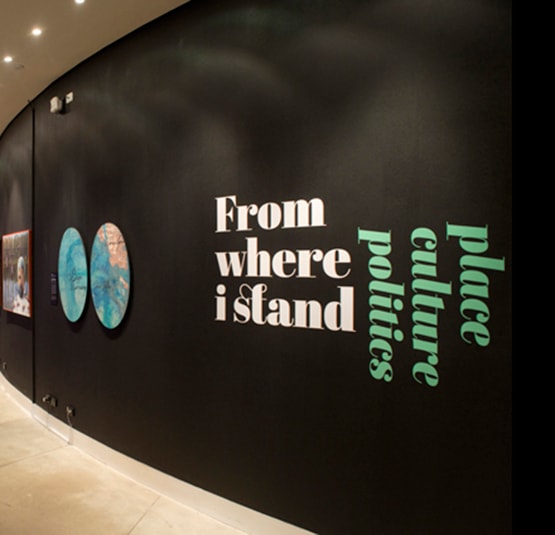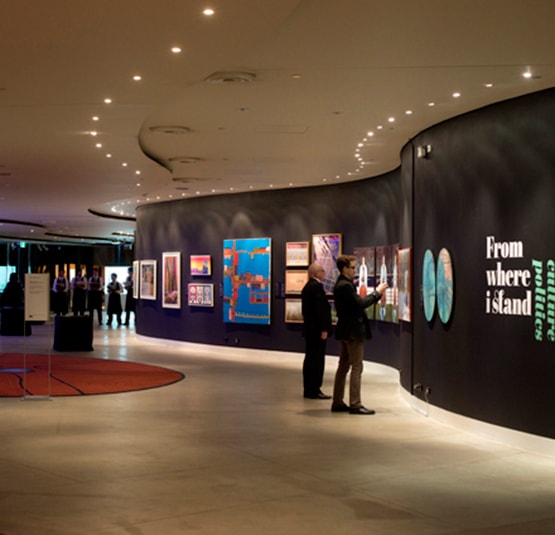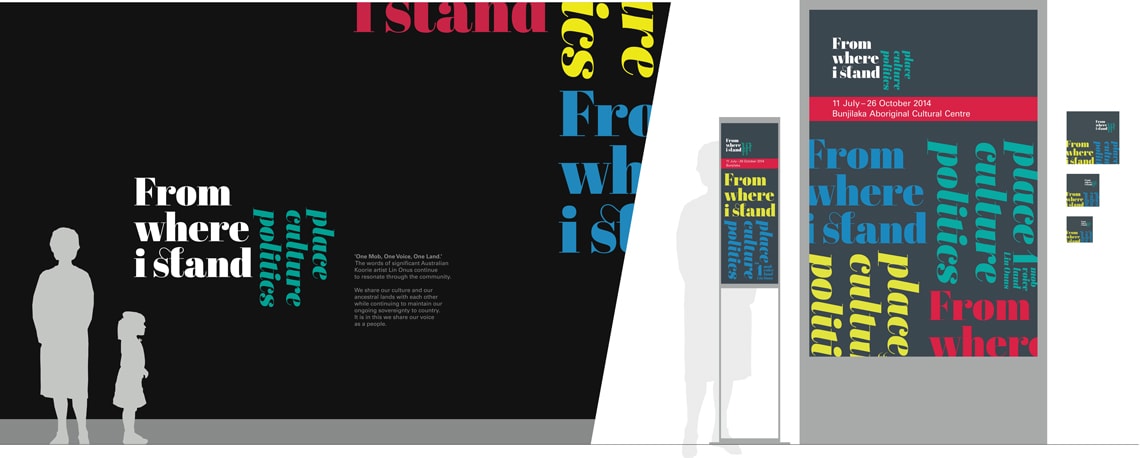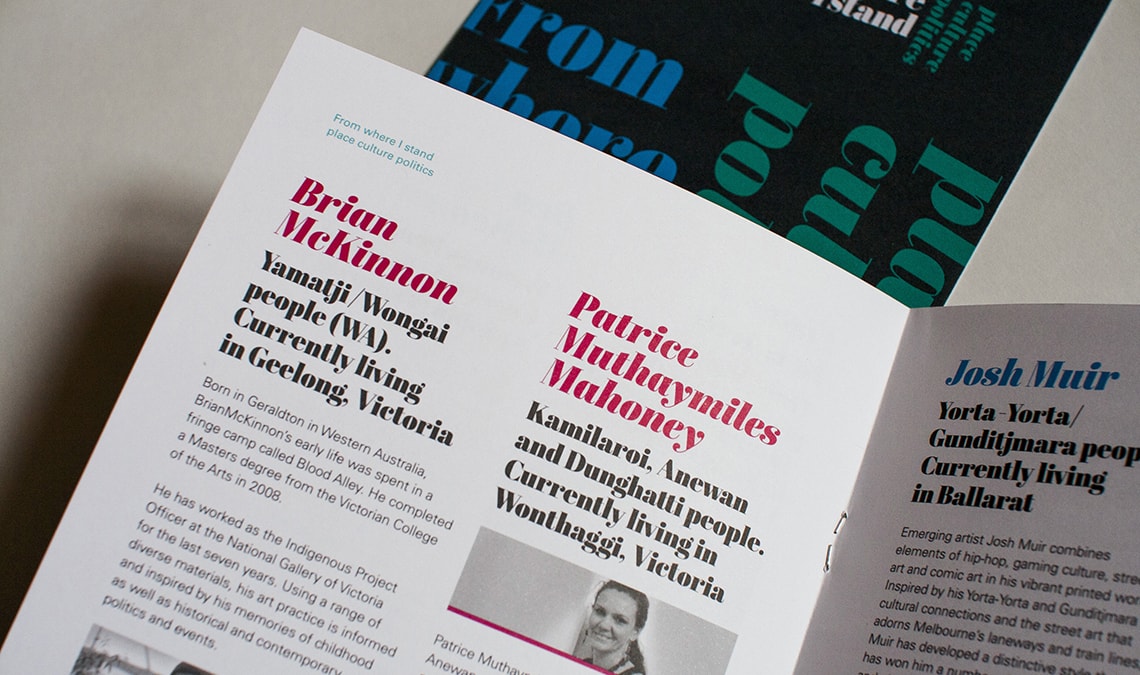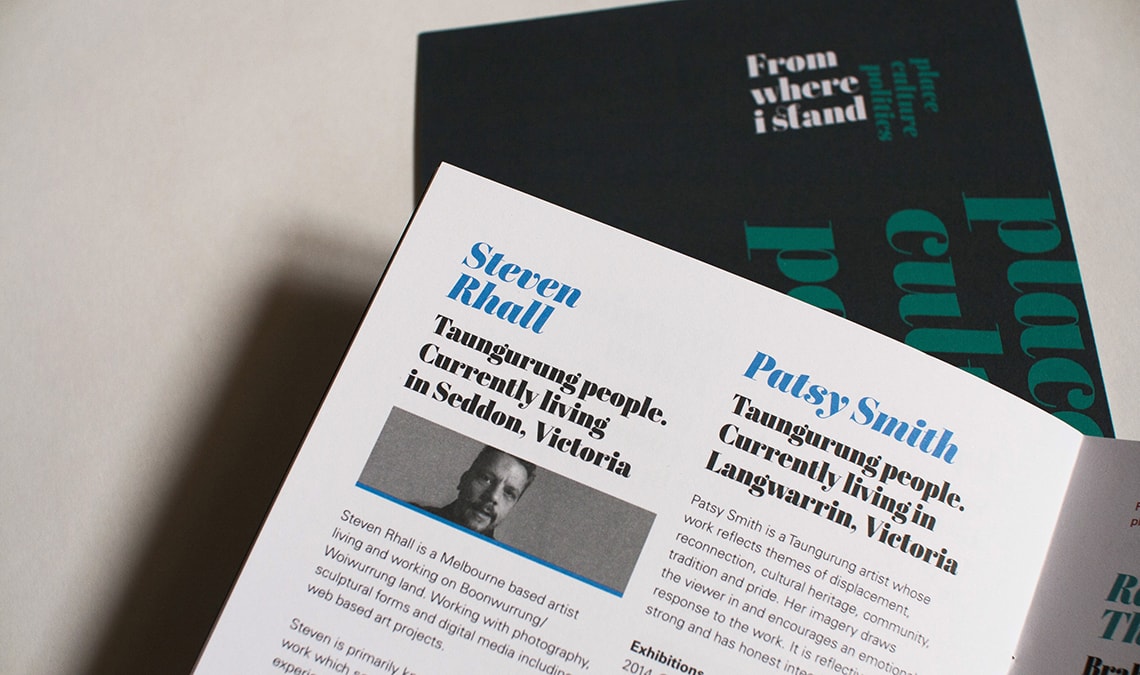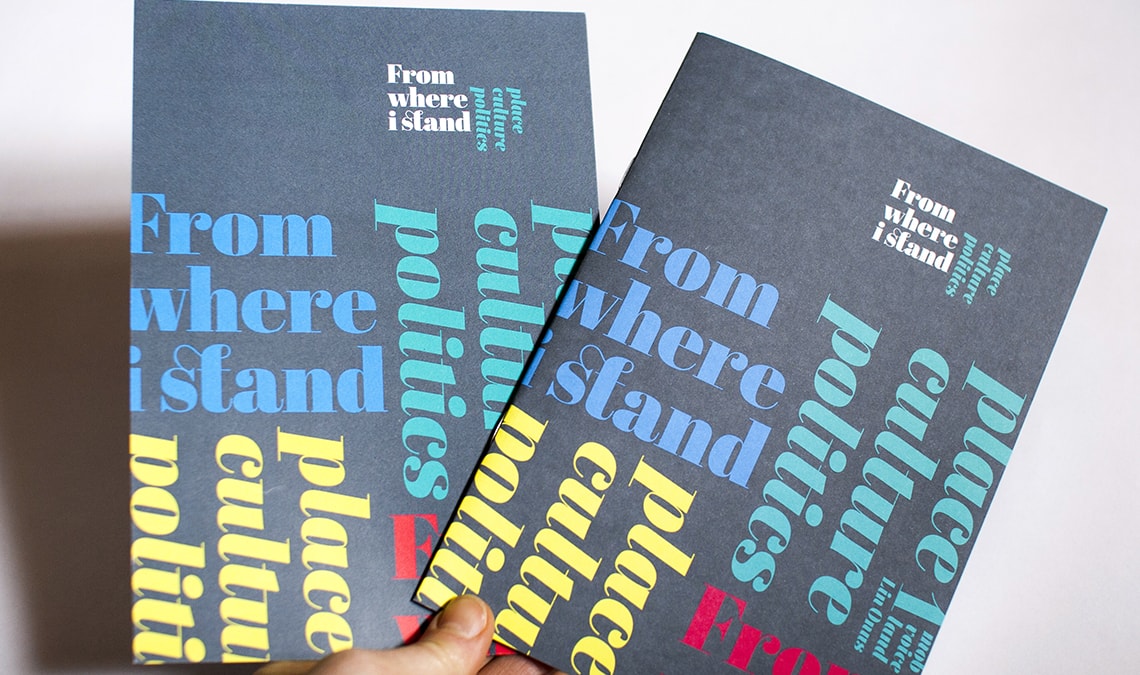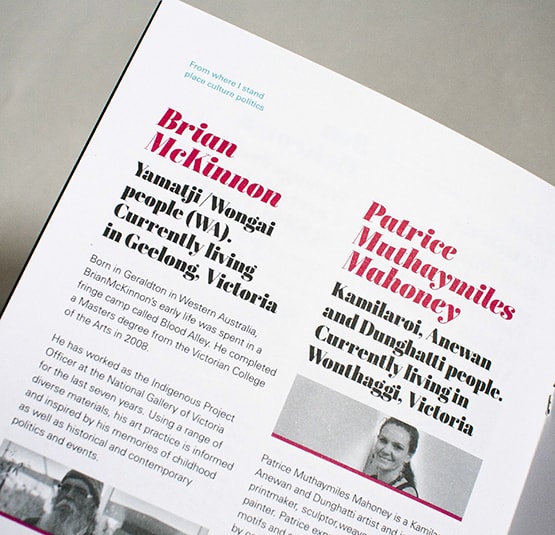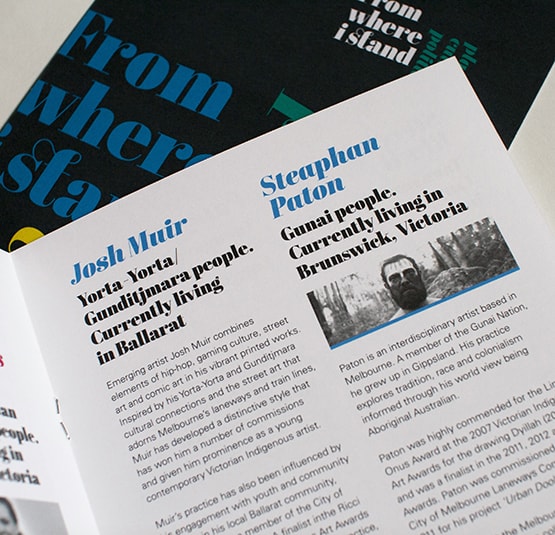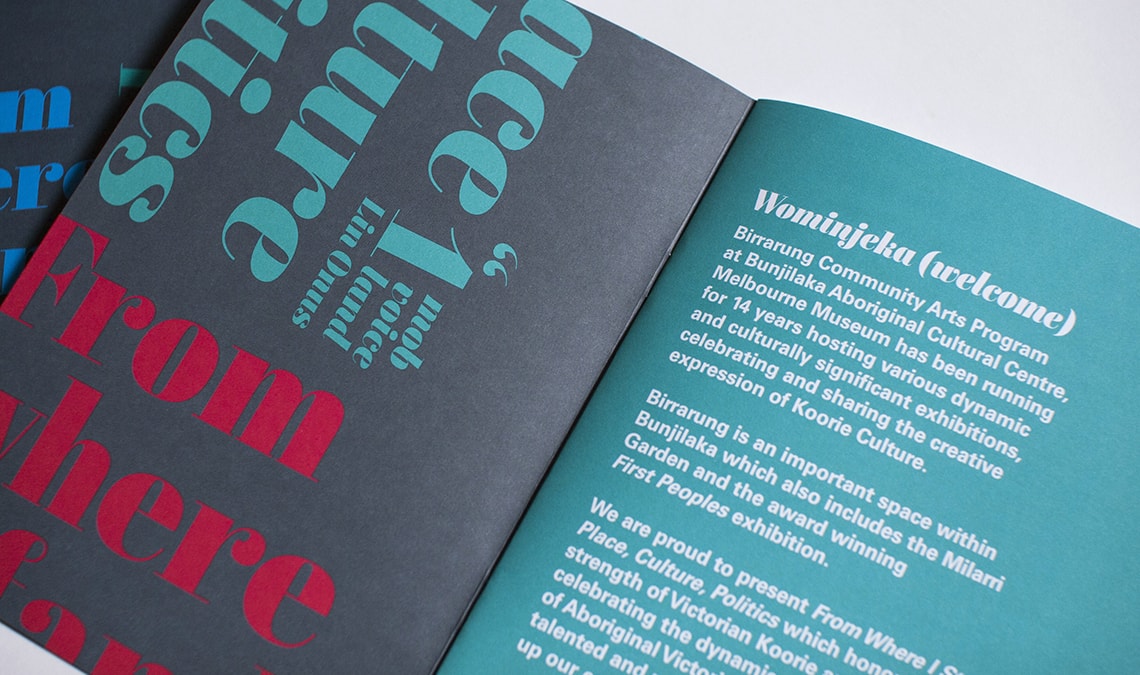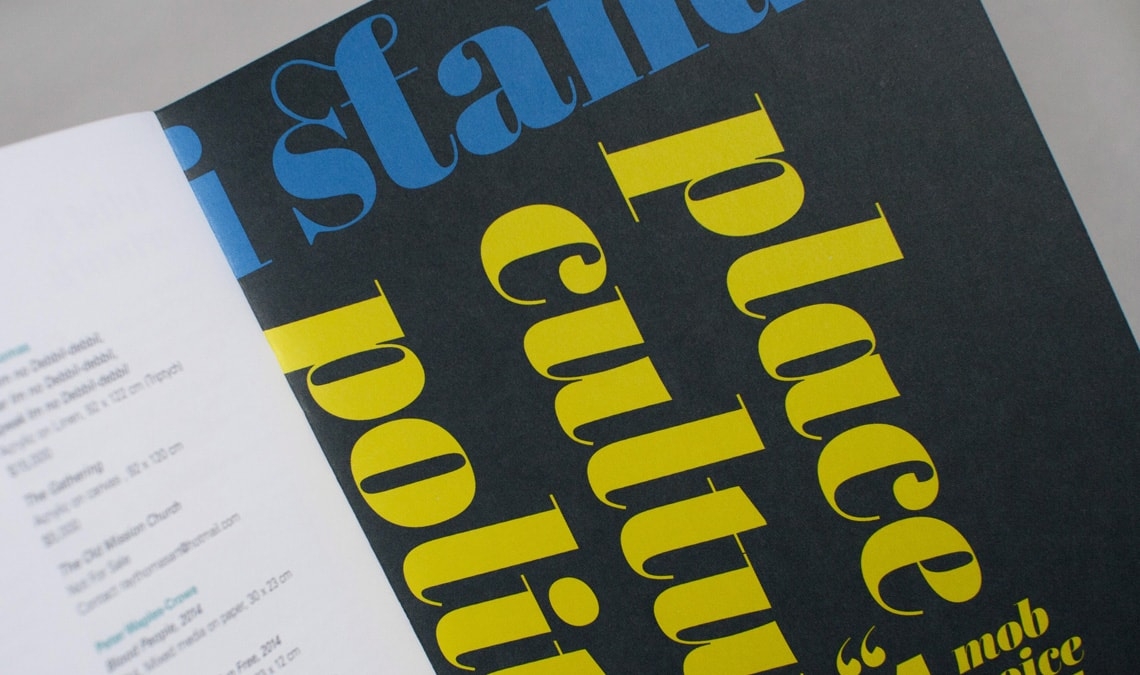
From Where I Stand
The exhibition ‘From Where I Stand: Place, Culture and Politics’, held in 2014 at Bunjilaka Aboriginal Cultural Centre at Melbourne Museum (Australia), highlighted the diversity of Aboriginal art in Victoria by sharing stories through the work of 17 Australian artists.
Abril in use in the ‘From Where I Stand: Place, Culture and Politics’ exhibition
Abril black
Australian designer Dot Georgoulas choose Abril Black for various functions within the identity of the exhibition, such as the logotype, signage, wayfinding system, and the catalogue. Abril Black worked on two levels, as text for information, and also as a landmark within the exhibition.
Abril in use in the ‘From Where I Stand: Place, Culture and Politics’ exhibition